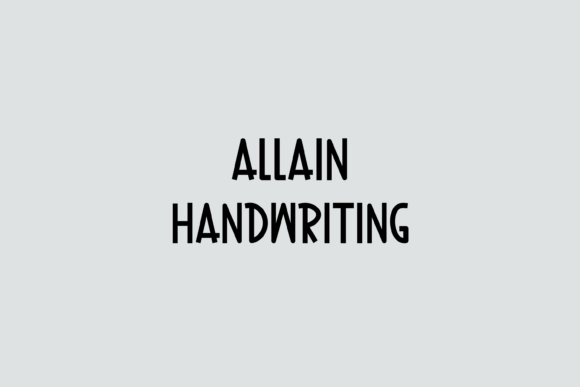
Enter the enchanting world of Allain Font, where elegance and playfulness intertwine to create a visual masterpiece. This captivating handwritten font, a brainchild of Woracado, is a symphony of strokes that will add a touch of magic to your designs.
Allain Font is the epitome of versatility, seamlessly adapting to a wide array of creative endeavors. Whether you're a seasoned designer or a budding artist, this font will elevate your projects with its effortless charm. Unleash your creativity and watch as your designs come alive with the beauty of Allain Font.
Dive into the allure of Allain Font and let your imagination soar. Picture your designs adorned with this whimsical and quirky font, captivating audiences with its infectious energy. Create logos that exude sophistication, wedding invitations that radiate romance, and quotes that resonate with profound emotion.
With Allain Font, the possibilities are limitless. Craft advertisements that demand attention, design print materials that leave a lasting impression, and produce magazines that inspire and captivate. This font is the ultimate tool for designers seeking to make a statement and leave an indelible mark on the world.
Don't settle for ordinary fonts; embrace the extraordinary with Allain Font. Its unique character and undeniable charm will transform your designs into works of art. Experience the joy of creating with a font that sparks creativity and ignites passion.
Welcome to the world of Allain Font, where every letter is a stroke of genius and every word a masterpiece. Prepare to be mesmerized by its beauty and captivated by its boundless potential. Let your imagination run wild and let Allain Font guide you to new heights of creative expression.